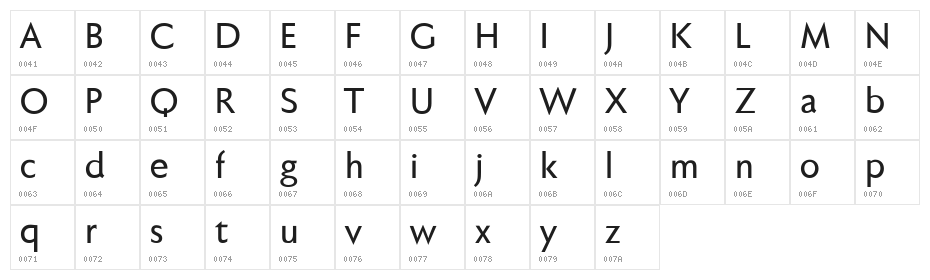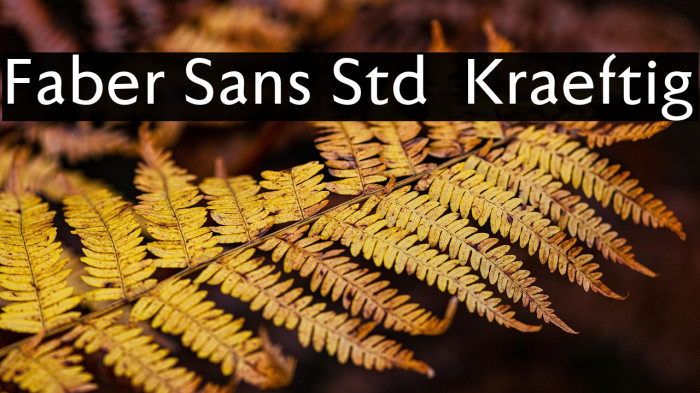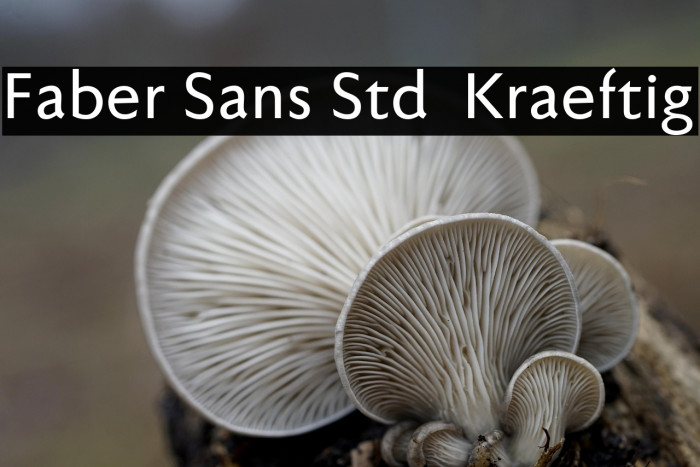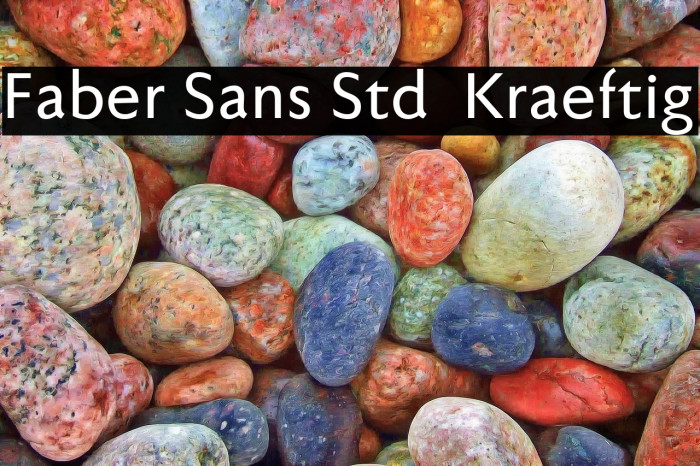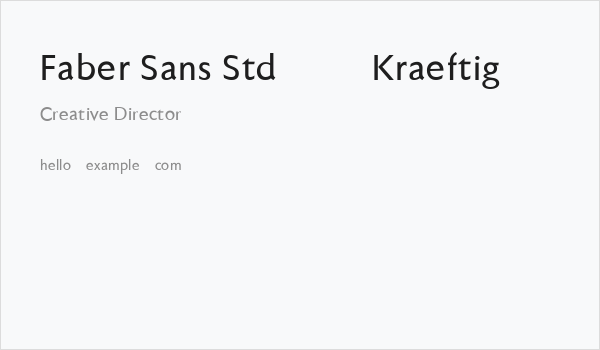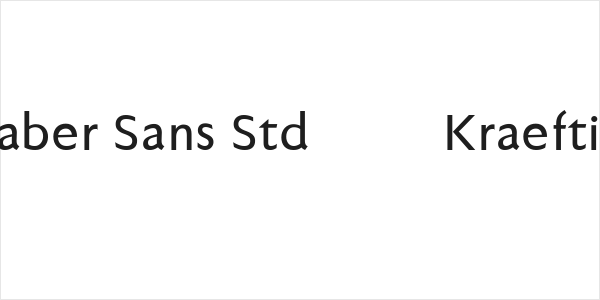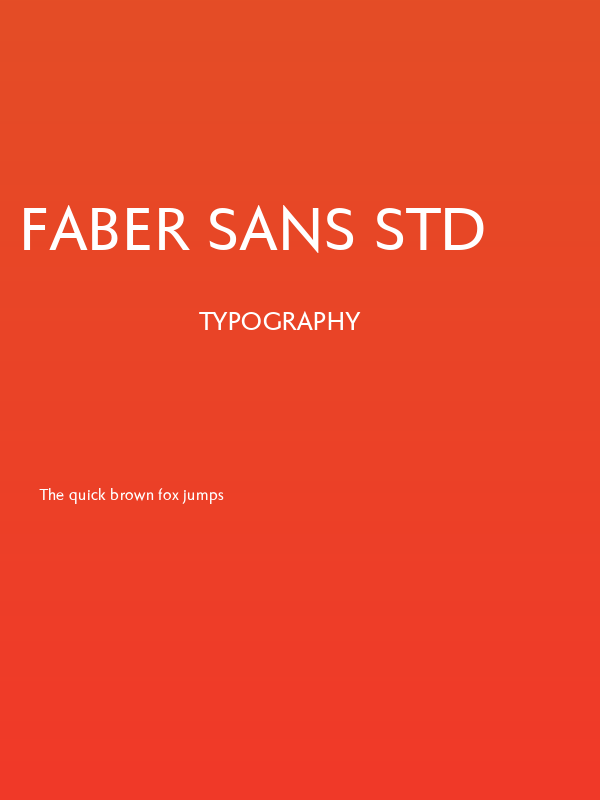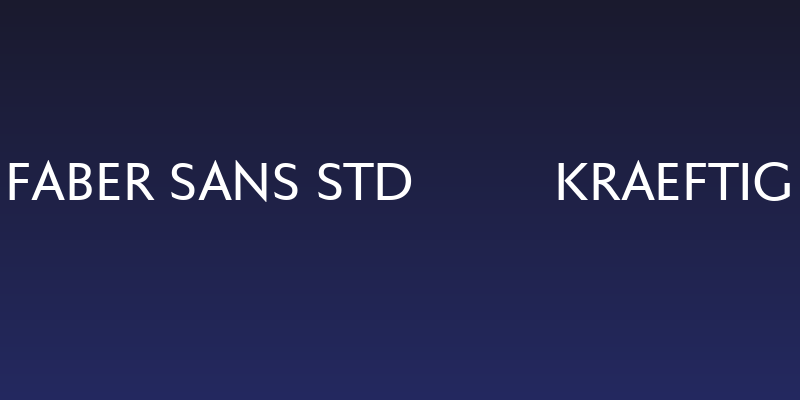
Faber Sans Std 65 Kraeftig Font
Faber Sans Std 65 Kraeftig Description
This font is a clean and modern sans-serif typeface characterized by its bold and robust appearance. The letters are evenly spaced, providing a balanced and harmonious look. The uppercase letters are slightly taller than the lowercase, maintaining a consistent width throughout. The strokes are uniform, contributing to a medium contrast that enhances readability. The design is straightforward, with minimal embellishments, making it versatile for various applications. The font's simplicity and clarity make it suitable for both digital and print media, ensuring legibility across different sizes and formats.
| Proposed Projects | Ideal for branding, advertising, web design, and editorial projects. |